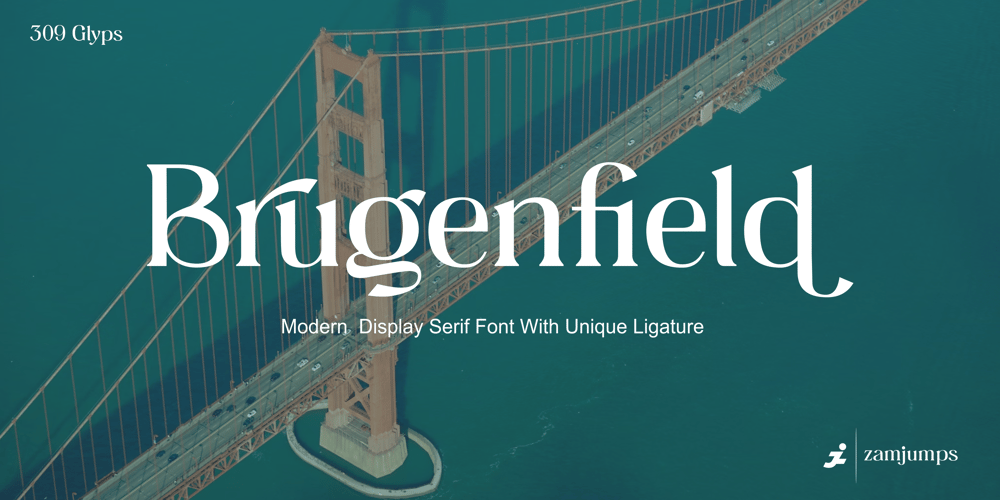
Brugenfield
Brugenfield font
Brugenfield Font Family was designed by Zamjump and published by Zamjump. Brugenfield contains 1 styles and family package options. Brugenfield is a modern serif display with a unique ligature. This typeface has been crafted with care to ensure a premium quality and luxurious feel. The binders make this typeface unique and stand out from regular serif fonts. It is suitable for logos, headlines, titles and various other formal forms such as invitations, labels, logos, magazines, books, greeting / wedding cards, packaging, fashion, make up, stationery, novels, labels or any kind of advertising purposes. We highly recommend using a program that supports the OpenType feature and the Glyphs panel such as many Adobe and Corel Draw applications, so that you can view and access all variations of Glyphs.Email us to zamjump@gmail.com if you need anything! Happy Designing!